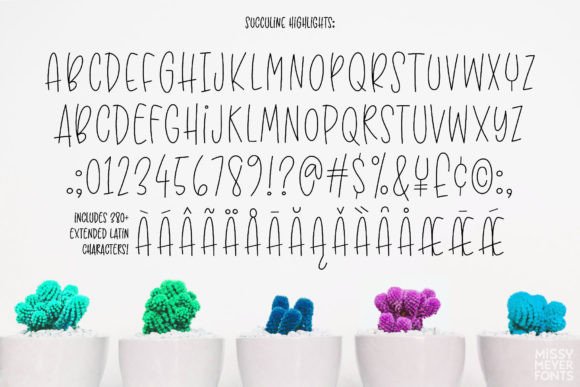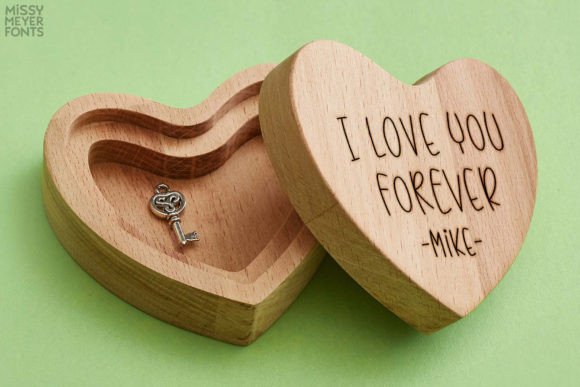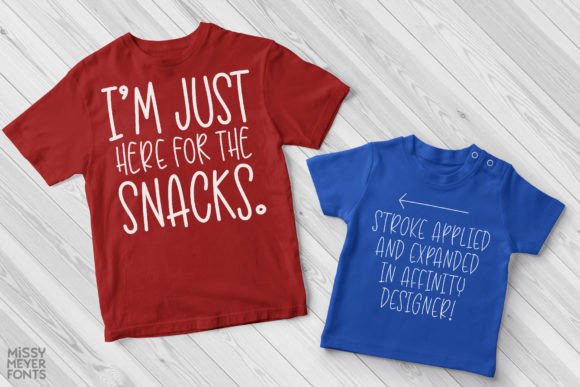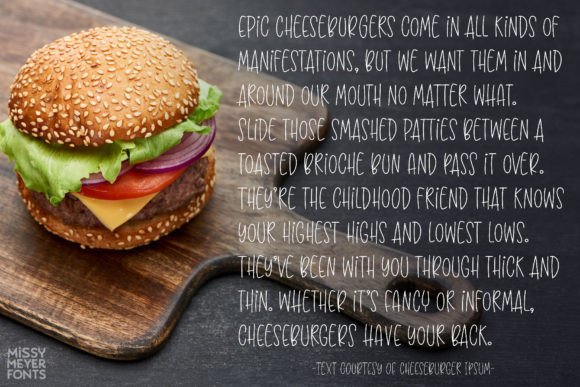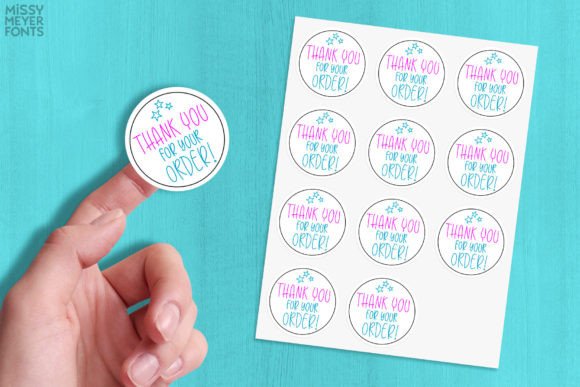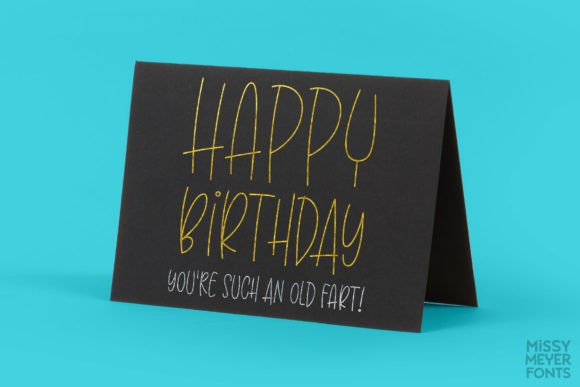
Succuline (single Line) Font
Presenting SuccuLine — a specialized single-line adaptation of the playful Succulent font! Now, all the fun and bounciness of the double-uppercase letters are tailored for compatibility with your Glowforge or other laser engraving systems, Cricut, Silhouette sketch pens, foil quill, embossing, infusible ink, and more.
Despite being TTF files, each character is OpenType coded and PUA-encoded, ensuring seamless accessibility across a myriad of programs. This includes vector design software such as Adobe Illustrator, CorelDRAW, Affinity Designer, Inkscape, and others. Simply apply a stroke instead of a fill, allowing you to adjust the font’s weight as desired, and expand the text to outlines for further customization.
It’s important to note that single-line and hairline fonts deviate from the conventional, as they are not suitable for word processing, printing, or traditional cutting. These fonts are purpose-built for sketch pens, foil quills, engraving tools, infusible ink pens, or any stylus or nib that draws letters with a single line, foregoing an outline. SuccuLine is available in both single-line and hairline versions, with different software programs utilizing distinct formats. For added convenience, you can download and install both versions to cater to your specific needs.
A noteworthy point: the font previewer may display SuccuLine in an unconventional manner. Rest assured, this is entirely normal and expected due to the unique nature of single-line fonts.
SuccuLine is not just a font; it’s a tool crafted for precision and creativity in specialized applications. Whether you’re engraving, sketching, or embossing, SuccuLine is designed to elevate your projects with the distinctive charm of the Succulent font in a single-line format.